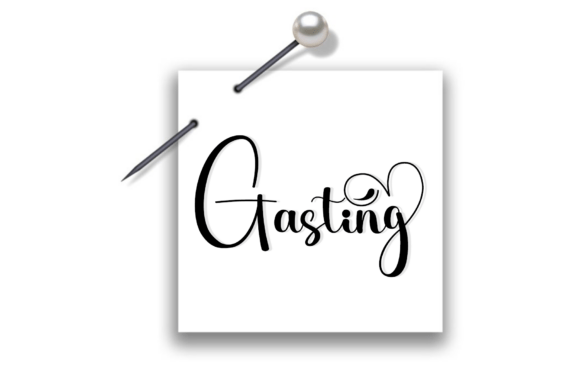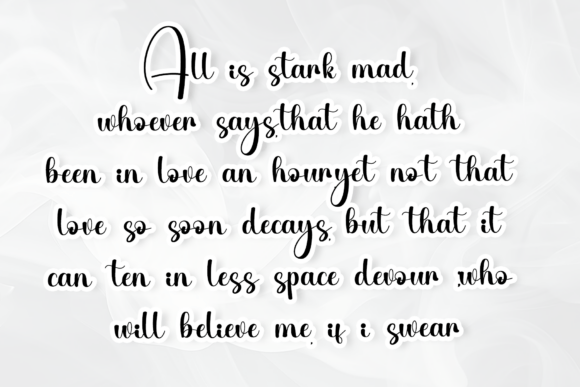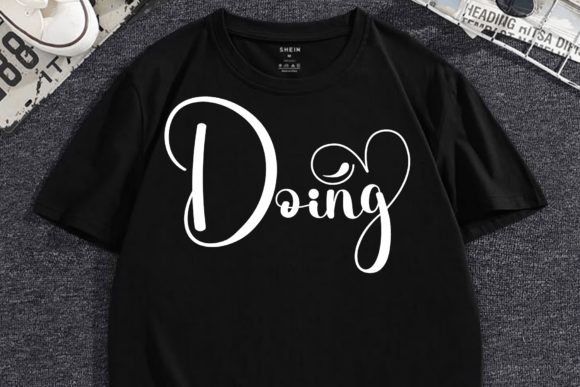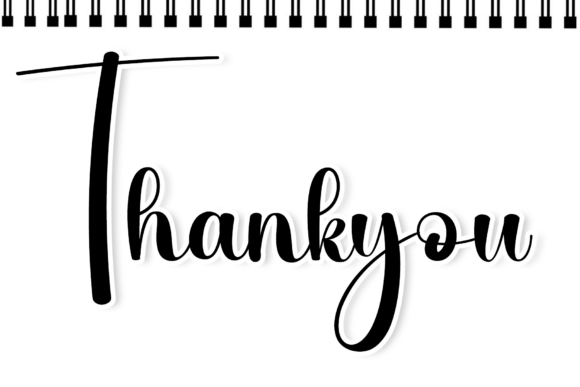
Introducing Boiling Font: A Timeless Handwritten Gem
Are you on the hunt for a font that adds a touch of elegance and sophistication to your designs? Look no further than Boiling Font, a lovely and timeless handwritten font that’s perfect for creating eye-catching logos, branding, and quotes. In this article, we’ll dive into the world of Boiling Font and explore its unique features, uses, and benefits for designers and crafters.
The Unique Charm of Boiling Font
Boiling Font is a beautifully crafted handwritten font that boasts a unique and beautiful touch. Every letter is carefully designed to add a personal touch to your designs, making them stand out from the crowd. The font’s timeless quality ensures that it won’t go out of style anytime soon, making it a great investment for designers and crafters who want to create stunning visuals.
Boiling Font is an excellent choice for creating eye-catching logos, branding, and quotes. Its elegant and sophisticated design makes it perfect for businesses and individuals who want to add a touch of class to their visual identity. Whether you’re creating a logo, brochure, or social media graphics, Boiling Font is sure to make your design come alive.
What Makes Boiling Font Special?
- Unique and Beautiful Touch: Every letter in Boiling Font has a unique and beautiful touch that adds a personal touch to your designs.
- Timeless Quality: The font’s timeless quality ensures that it won’t go out of style anytime soon, making it a great investment for designers and crafters.
- Elegant and Sophisticated: Boiling Font is perfect for creating elegant and sophisticated designs that are sure to impress.
- Versatile: The font is versatile and can be used for a wide range of design projects, from logos and branding to quotes and social media graphics.
How to Use Boiling Font in Your Designs
Using Boiling Font in your designs is easy. Here are a few tips to get you started:
- Pair it with Other Fonts: Boiling Font pairs well with other fonts, so feel free to experiment with different combinations to create a unique look.
- Use it for Headings and Titles: The font is perfect for headings and titles, so use it to add a touch of elegance to your designs.
- Experiment with Colors: Boiling Font looks great in a variety of colors, so don’t be afraid to experiment with different colors to find the perfect one for your design.
Boiling Font offers a range of benefits for designers and crafters, including:
- High-Quality Design: Boiling Font is a high-quality font that’s designed to produce stunning visuals.